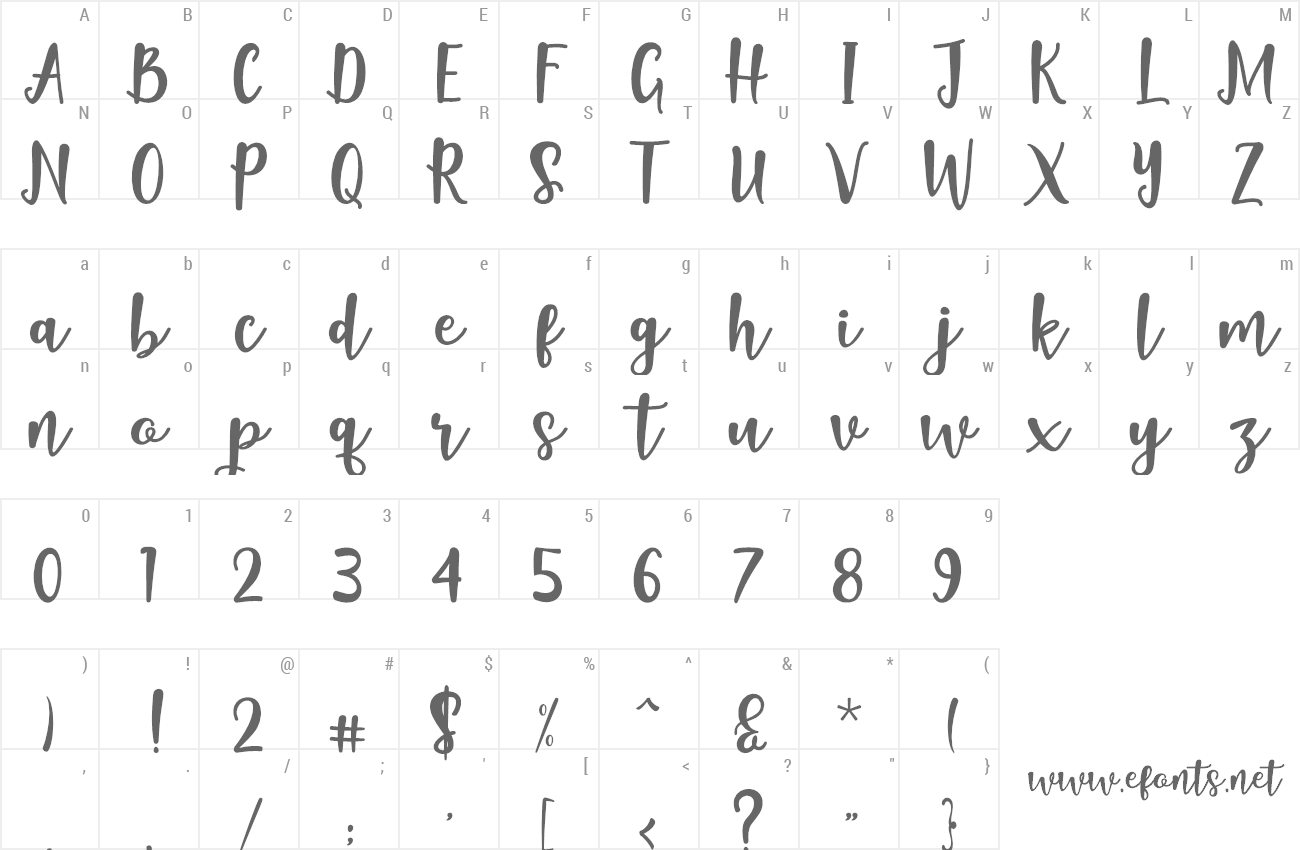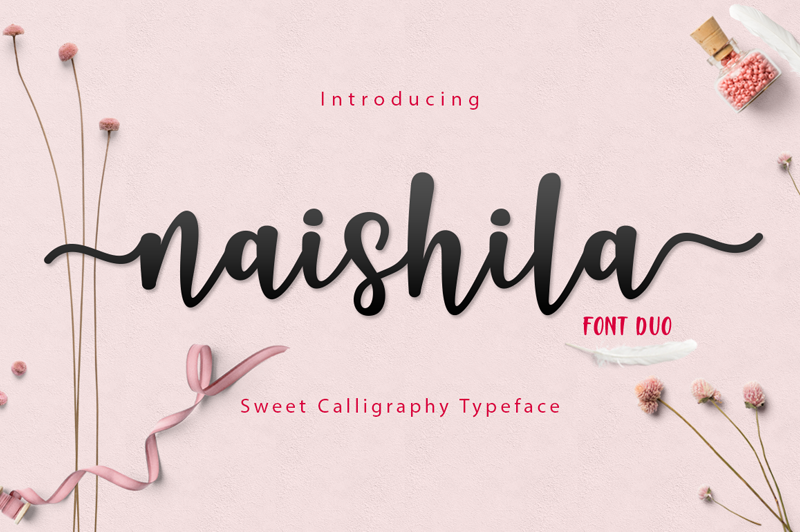
Introducing Naishila is a lovely and sweet font duo. This new font family includes a caps and script. Naishila is a lovely and sweet font with a dancing baseline. But here you will also receive regular font (not dancing). The script comes with stylistic sets and ligatures. Still as before, Naishila also be used to meet the growing market of design today. This font has a model semi-bold, stylish, cute, lovely, sweet and soft. It is suitable for use in design styles such as watercolor, minimalist, flat, modern design, etc. Coming up with the font duo, you can very easily combine. Surely you can easily make something perfect for your design. This font is free for just Personal use. Link to download full version : https://crmrkt.com/Dv8ooV Visit my store for more great fonts: https://creativemarket.com/fadeline Thank you! |